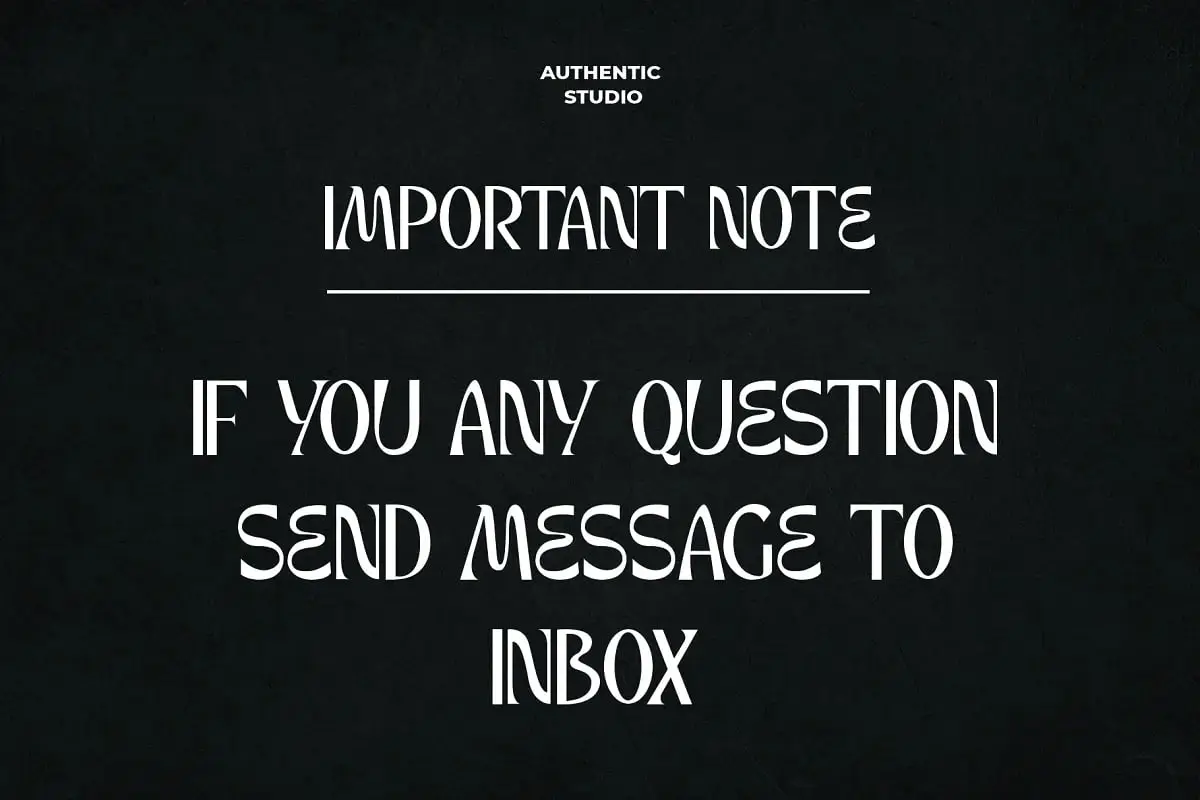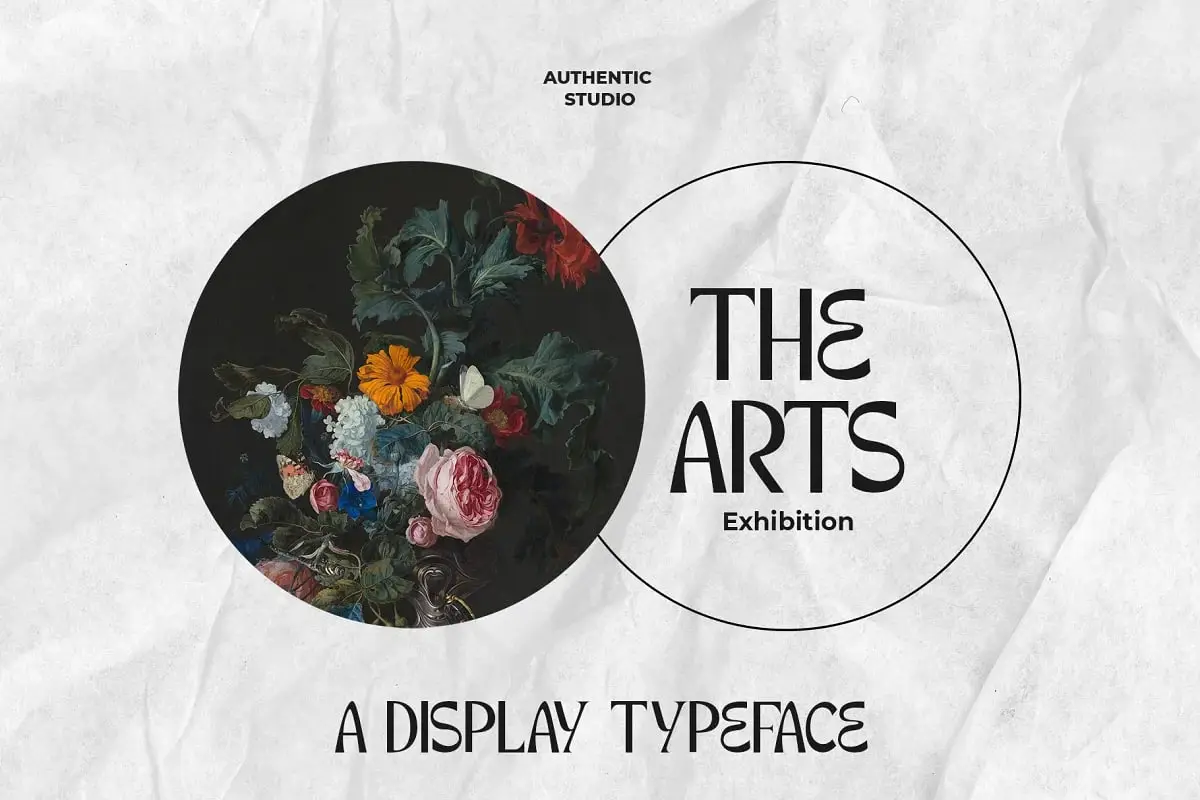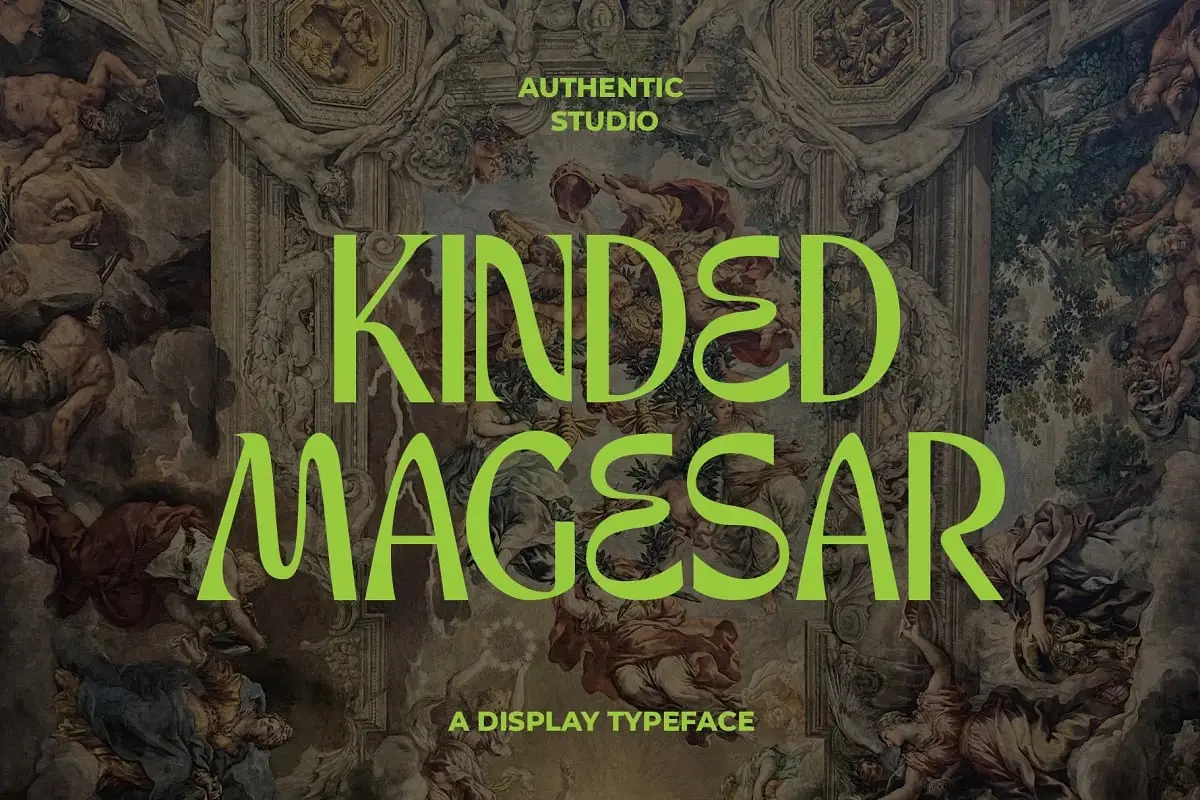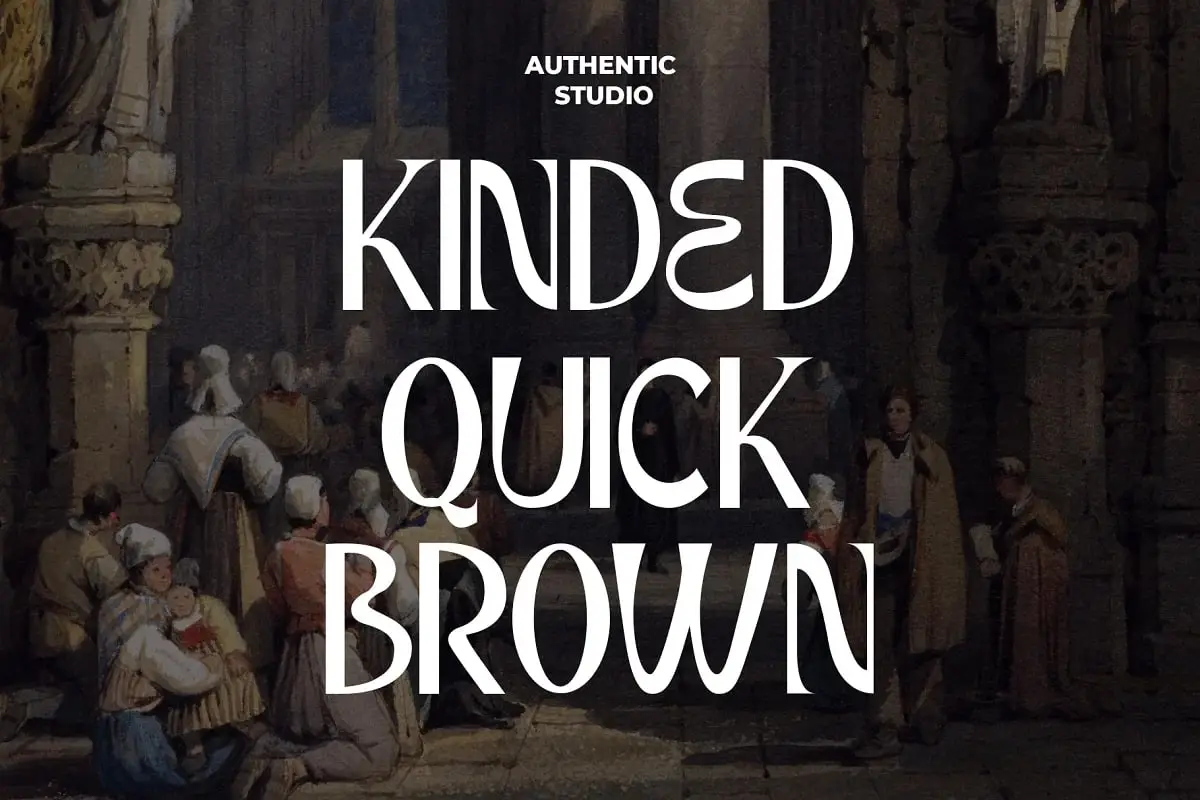
The Magesar Font is a versatile typeface designed to add a unique touch to your projects. With its elegant curves and modern aesthetic, this font is perfect for a variety of applications, including branding, logos, web design, print materials, and user interfaces.
- Stylish and contemporary design
- Multiple weights for diverse applications
- Uppercase and lowercase letters
- Numerals and punctuation included
- Weights: Regular, Bold, Italic
- Ideal for branding projects and logos
- Great for headlines and titles in print and web design
- Use in user interfaces for a modern look